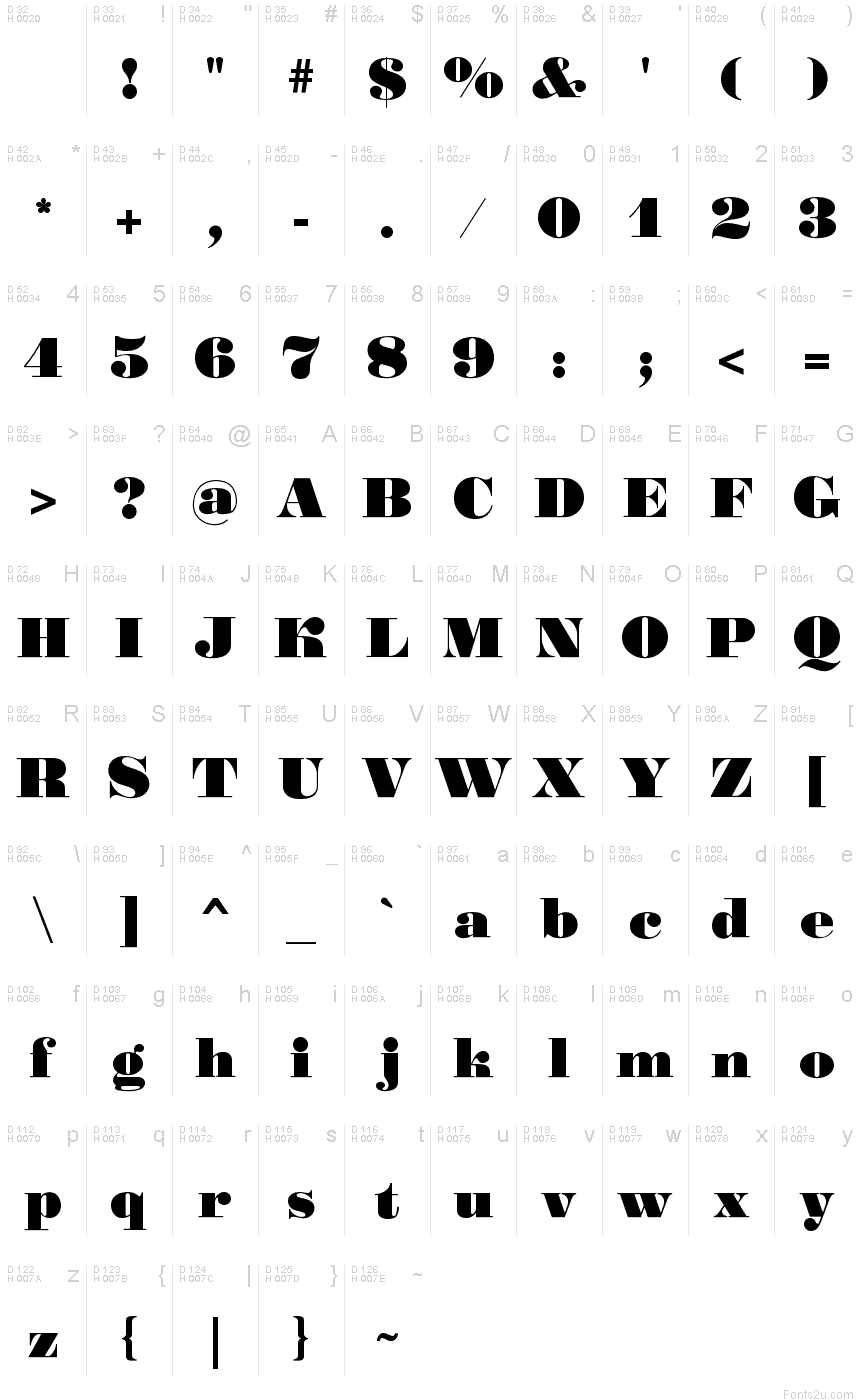
Gourmandise
Gourmandise is a free high-contrast serif with the poised elegance of a fashion masthead. Its broad verticals meet hairline strokes and fine, extended serifs. The rounded letters are especially lush and generous.
Luxury fashion or beauty brands could use it for packaging, campaigns, and boutique signage. In editorial design, its dramatic stroke changes suit magazine covers and culture features. The long serifs and sculpted curves can echo borders, product silhouettes, or other refined linework.